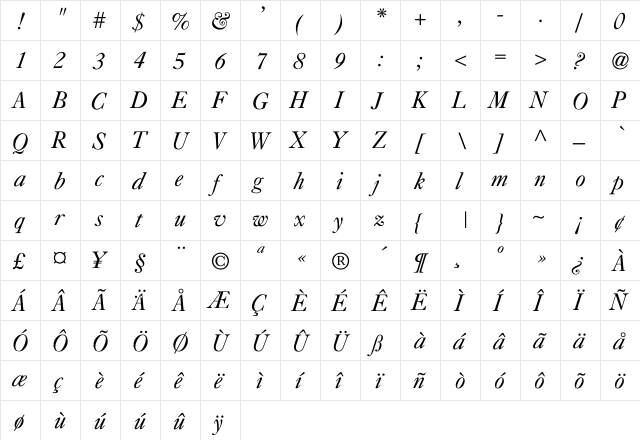
Lara Light Regular
Design Context for Lara Light Typeface
Lara Light is a composed and adaptable typeface that performs quietly and consistently across a wide range of design contexts. The delicate stroke weight brings airiness and refinement to layouts.